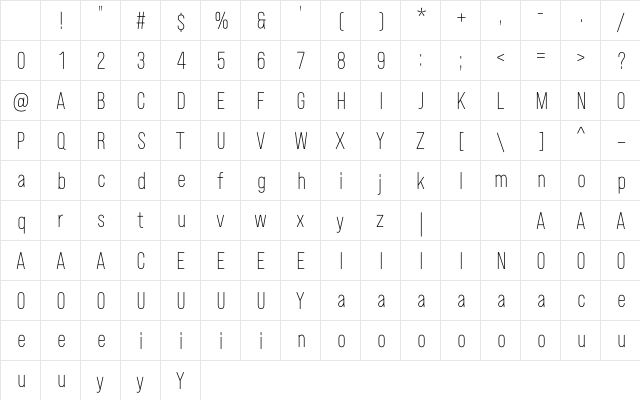
Fitiya is a composed and adaptable typeface that performs quietly and consistently across a wide range of design contexts. Its slender proportions lend an understated elegance to any composition.